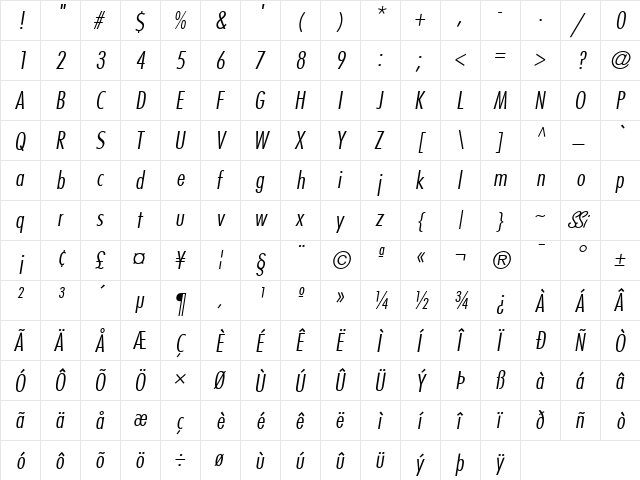
Kudos Light Condensed SSi Light Condensed Italic Font Preview
Design Context for Kudos Light Condensed SSi Typeface
Kudos Light Condensed SSi is a composed and adaptable typeface that performs quietly and consistently across a wide range of design contexts. The slanted form adds forward momentum and visual energy. The delicate stroke weight brings airiness and refinement to layouts. The condensed width makes it efficient for tight spaces without sacrificing legibility.
Pro Tip: Use Kudos Light Condensed SSi for emphasis, pull quotes, and subheadings where its slanted energy can add rhythm to the layout.